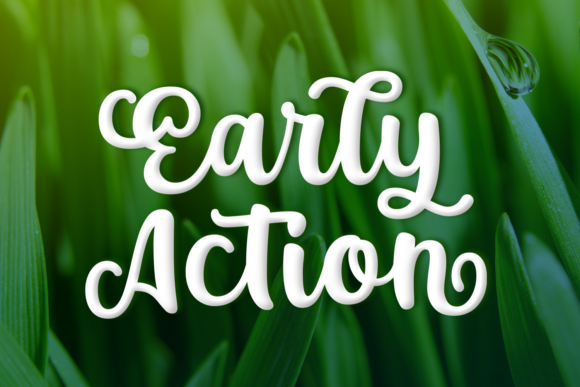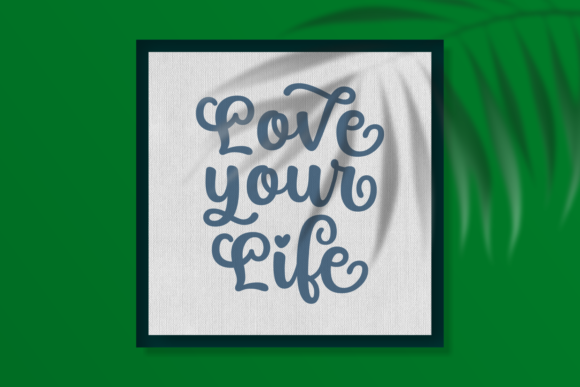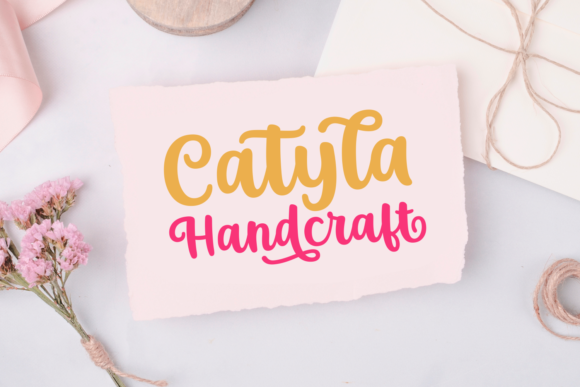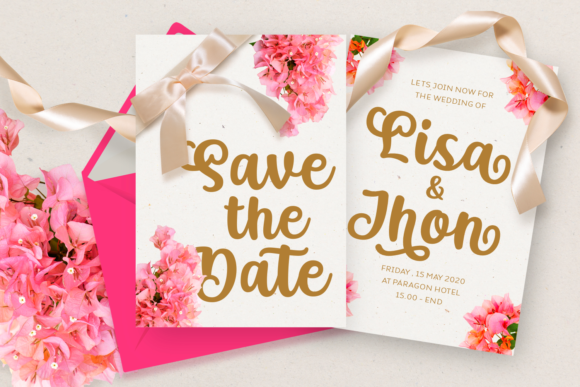
Early Action Font
About Early Action Font
Early Action is an exquisite handwritten font. It looks stunning on wedding invitations, thank you cards, quotes, greeting cards, logos, business cards and every other design which needs a handwritten touch.